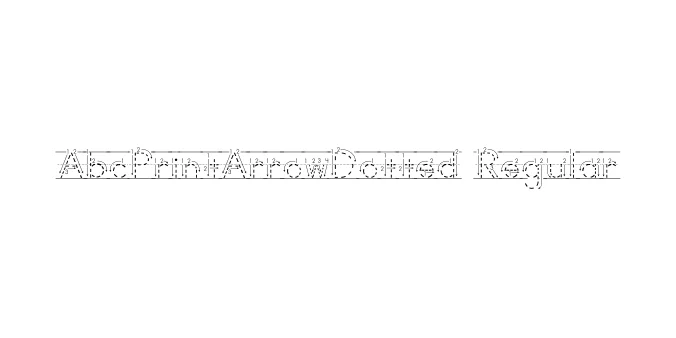
AbcPrintArrowDotted Regular
Designed by Gernot Landa
| Category | Educational / School |
| Designer | Gernot Landa |
AbcPrintArrowDotted Regular is a specialized educational typeface designed to support early childhood development and fundamental handwriting skills. Developed with a focus on pedagogical utility, this font features clear, legible letterforms constructed with dotted lines that serve as precise guides for tracing activities. Each character is accompanied by directional arrows, providing a vital visual roadmap for students to master the correct stroke order and flow of the English alphabet.
The font is widely utilized by educators and parents to create custom worksheets and instructional materials tailored to young learners. Its clean, geometric sans-serif structure ensures that children focus on the fundamentals of letter formation without the distraction of decorative elements. By combining tactile tracing elements with visual cues, AbcPrintArrowDotted Regular remains an essential tool in literacy education and primary school curriculum design across the globe.
AbcPrintArrowDotted Regular Best Uses
Creating handwriting worksheets for primary school students.
Teaching the correct stroke order for alphabet formation and muscle memory.
Designing custom tracing exercises and personalized name-writing sheets for children.